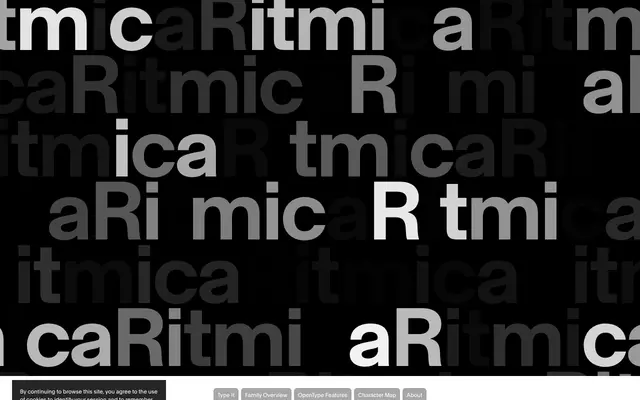
Ritmica
Optimo · François Rappo
Ritmica specimen from Optimo
François Rappo's warm modernist grotesque, with almost-sealed counters that give the family a hypnotic rhythm, in five weights with italics and variable cuts.
A warm modernist grotesque by François Rappo. Aligned with mid-century grotesque traditions through its horizontal terminals and straightforward stance, Ritmica reveals personality through almost-sealed negative spaces in the a, e and s, which clasp letterform and counterform together and create a hypnotic, almost magnetic texture. Five weights with italics, plus an Upright Variable, Variable and Collection Upright and Italic Variable, give the family a tight editorial range with depth.
Optimo describes Ritmica as aligned with mid-century grotesque traditions through its horizontal terminals and straightforward stance, distinguished by almost-sealed negative spaces in the a, e and s.